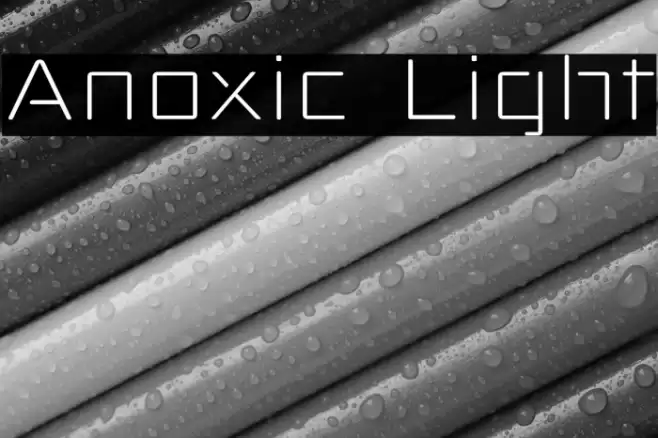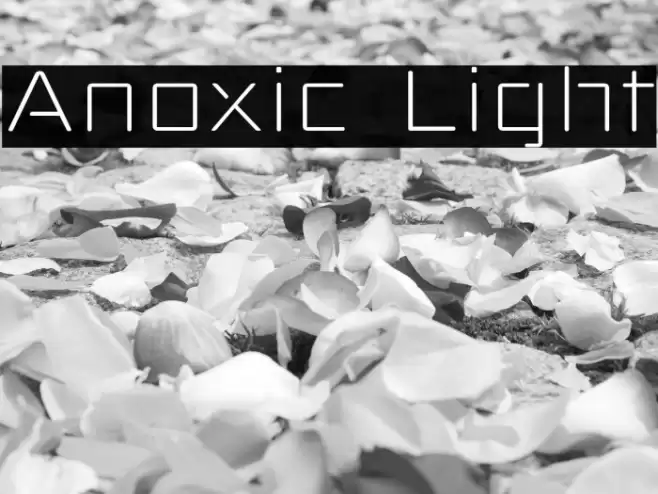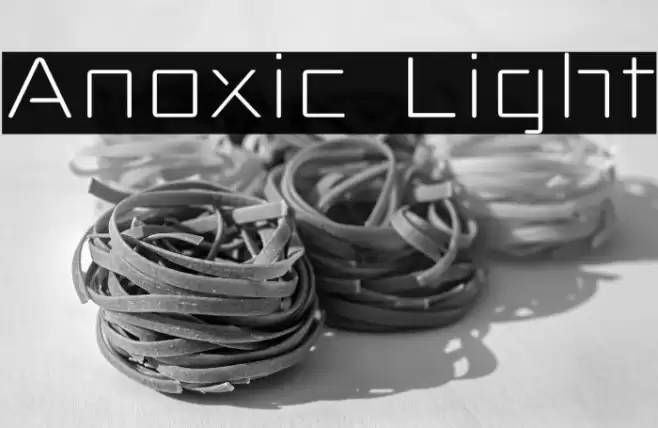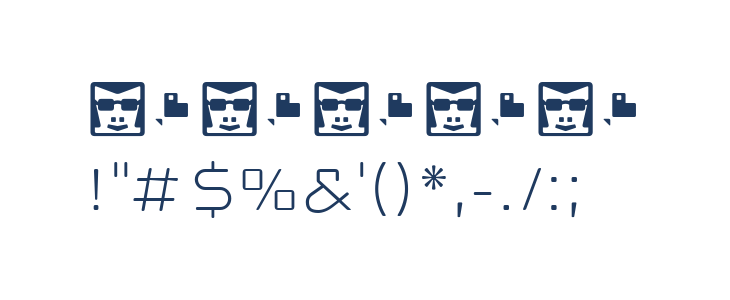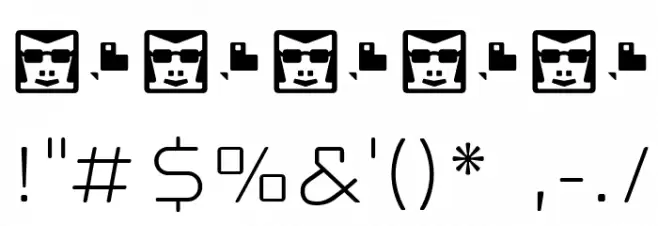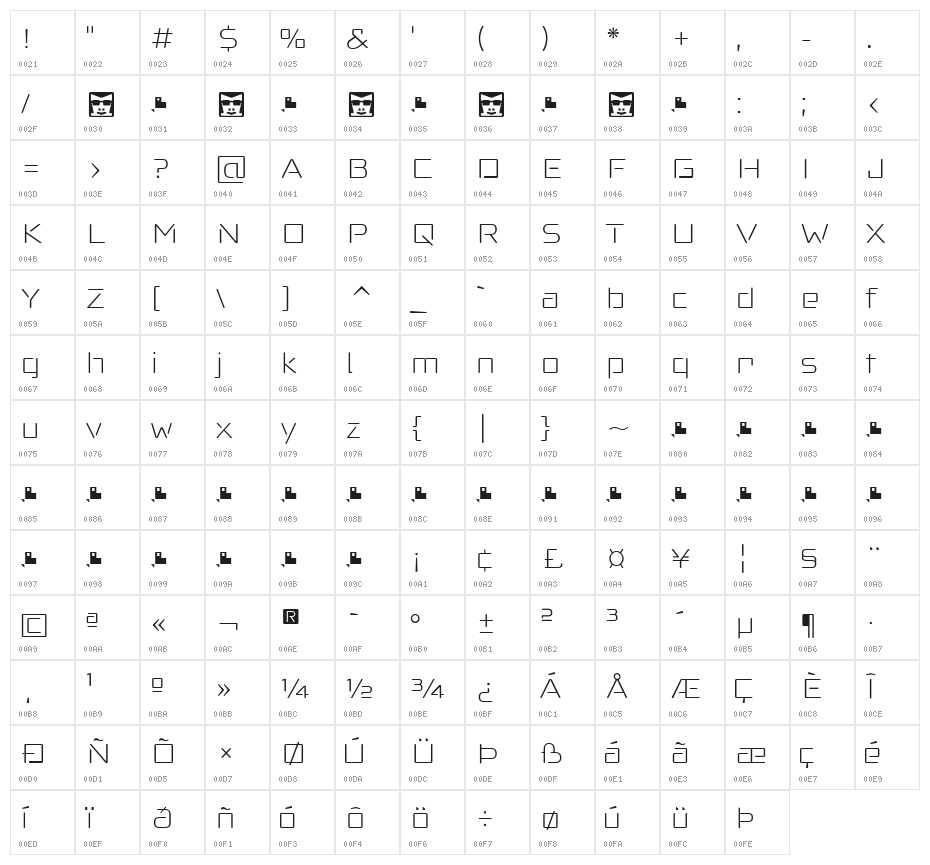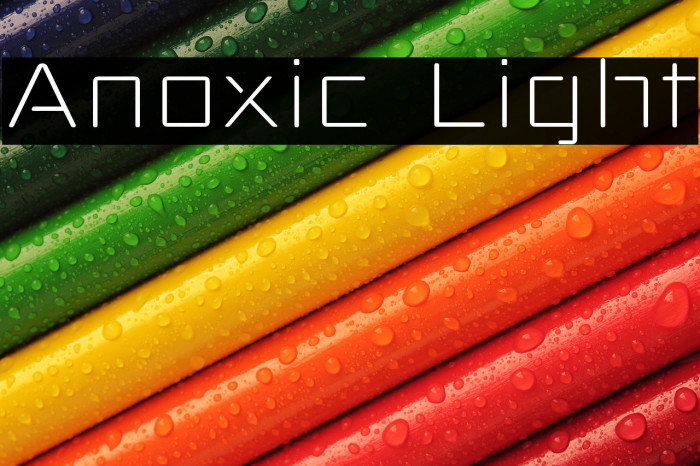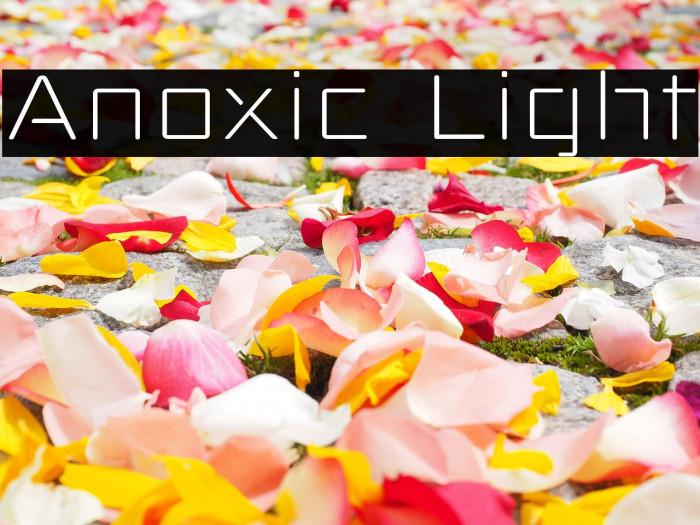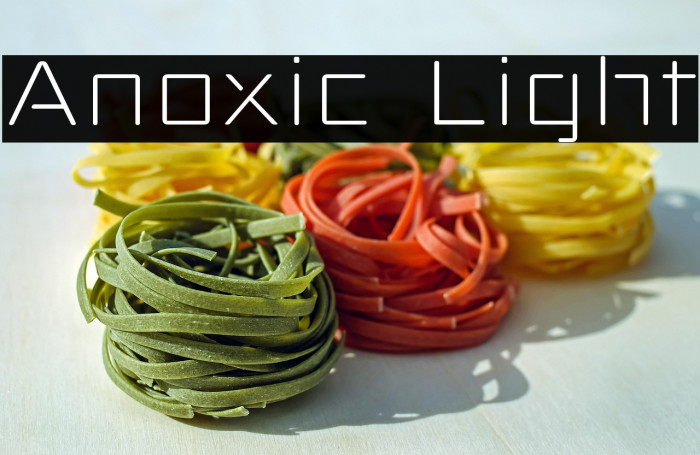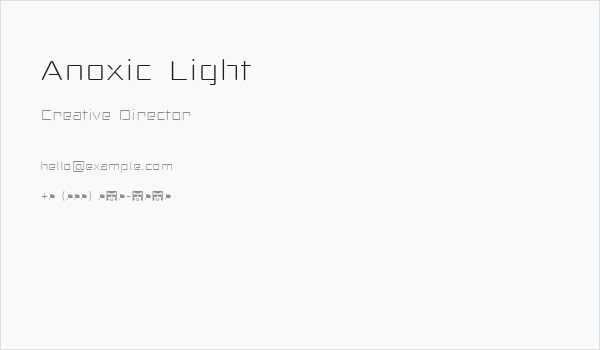
Anoxic Light Font
Anoxic Light Description
This font features a modern, geometric design with a clean and minimalistic aesthetic. The characters are constructed with straight lines and sharp angles, giving it a futuristic and technical appearance. The uppercase and lowercase letters maintain a consistent style, with uniform stroke widths that contribute to its sleek look. The numerals and special characters follow the same design principles, ensuring a cohesive overall appearance. The font's simplicity and clarity make it highly legible, suitable for a variety of applications where a contemporary and sophisticated look is desired.
A modern, geometric font with a clean and minimalistic design from Regular fonts.
- Proposed Projects: Ideal for technology branding, modern website headers, and futuristic poster designs.
- Use Case: Headlines, Logos, Branding